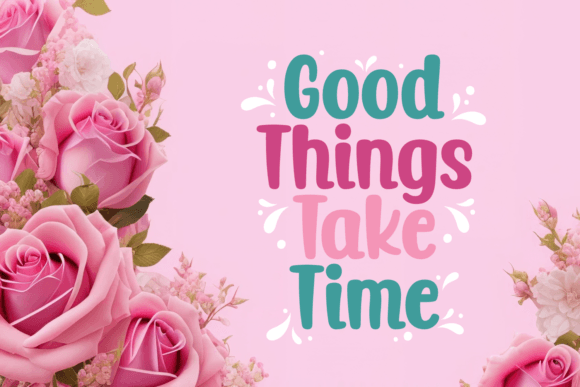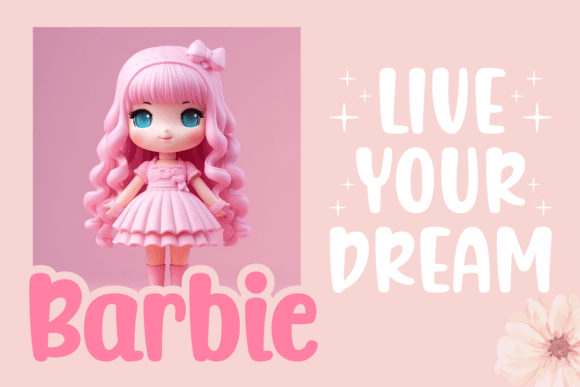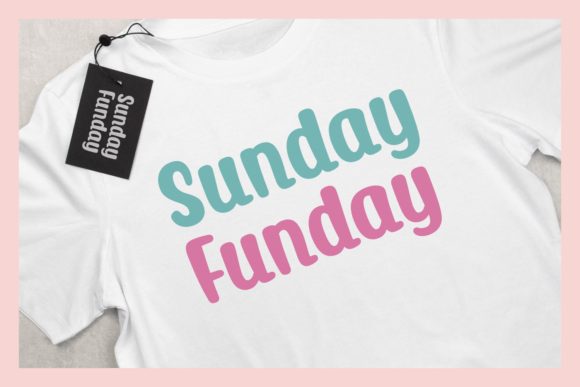
Introduction to Pinky Roses Font
Pinky Roses is a striking display font filled with the robust allure of handcraft.
Its exquisite design is seamless for captivating book covers, engaging brand persona creation, and sweetly decorated cakes The entertaining charm of Pinky Roses shines spectacularly when used in children’s materials, romance-themed projects, and distinctive crafts.